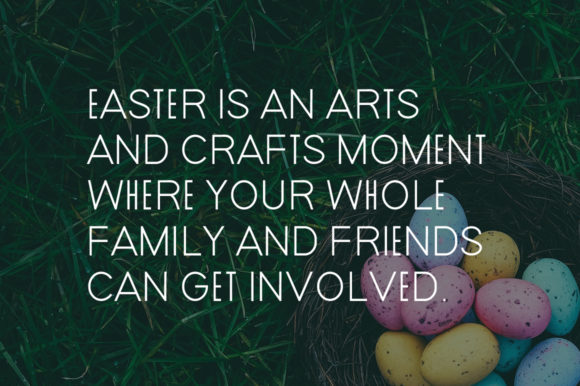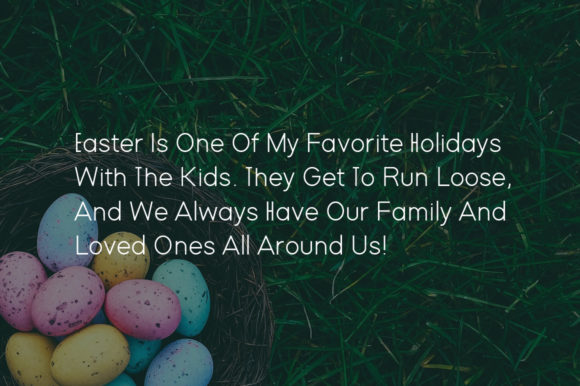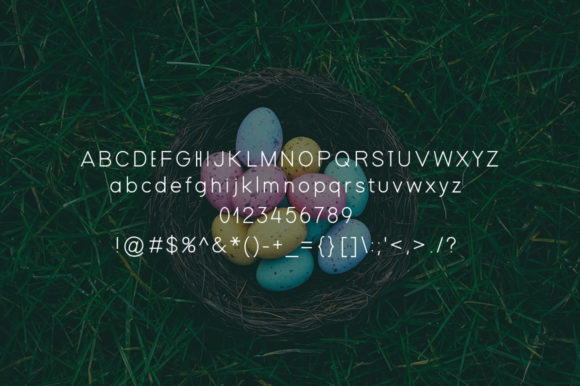
Eastertime Font: The Perfect Addition to Your Easter-themed Designs
Are you looking for a fresh and festive font to elevate your Easter-themed designs? Look no further than Eastertime Font, a brand new display font that’s perfectly suited for a wide range of creative projects. In this article, we’ll take a closer look at Eastertime Font and explore its features, uses, and benefits for designers and crafters.
What is Eastertime Font?
Eastertime Font is a brand new display font designed specifically for Easter-themed designs. Its unique and playful style makes it perfect for adding a touch of festivity to your projects. Whether you’re a designer, crafter, or DIY enthusiast, Eastertime Font is an excellent addition to your font collection.
Features of Eastertime Font
Eastertime Font boasts a range of features that make it an excellent choice for various design projects. Some of its key features include:
- Unique and playful style: Eastertime Font has a distinctive and eye-catching style that’s perfect for Easter-themed designs.
- High-quality design: The font is carefully crafted with attention to detail, ensuring a high-quality design that’s perfect for printing and digital use.
- Versatile: Eastertime Font can be used for a wide range of projects, from stationery and logos to t-shirts, paper, and print design.
- Easily readable: Despite its playful style, Eastertime Font is easily readable, making it perfect for use in website headers, photo frames, flyers, and more.
Uses of Eastertime Font
Eastertime Font is an incredibly versatile font that can be used for a wide range of design projects, including:
- Stationery: Add a touch of Easter festivity to your stationery with Eastertime Font.
- Logos: Create a unique and memorable logo for your Easter-themed business or product.
- T-shirts and apparel: Design eye-catching Easter-themed t-shirts and apparel with Eastertime Font.
- Paper and print design: Use Eastertime Font for paper crafts, print design, and other paper-based projects.
- Website headers: Add a festive touch to your website headers with Eastertime Font.
- Photo frames and flyers: Use Eastertime Font to create beautiful photo frames and flyers for Easter events.
- Music covers and posters: Design stunning music covers and posters with Eastertime Font.
- Image sliders and more: The possibilities are endless with Eastertime Font!
Eastertime Font offers a range of benefits for designers and crafters, including:
- Time-saving: With Eastertime Font, you can quickly and easily create stunning Easter-themed designs without spending hours designing from scratch.
- High-quality designs: Eastertime Font ensures high-quality designs that are perfect for printing and digital use.
- Increased creativity: With Eastertime Font, you can experiment with different design ideas and create unique and eye-catching Easter-themed designs.
| Font Name | Eastertime Font |
| Author | MSB |
In conclusion, Eastertime Font is a fantastic addition to any designer’s or crafter’s font collection. Its unique and playful style, high-quality design, and versatility make it perfect for a wide range of Easter-themed design projects. Whether you’re a seasoned designer or a DIY enthusiast, Eastertime Font is sure to inspire your creativity and help you create stunning Easter-themed designs.